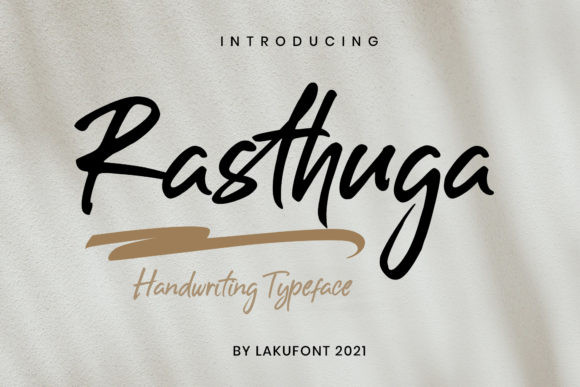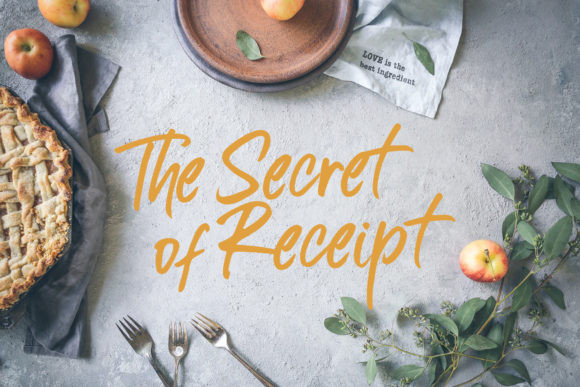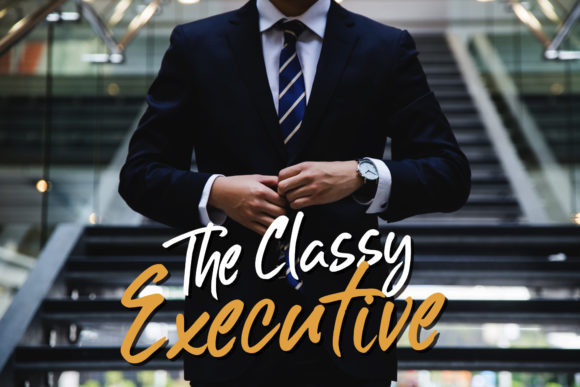
Rasthuga Font
Rasthuga is a stylish and flowing handwritten font. This versatile script font has a wide range of applications ranging from greeting cards to kids’ crafts, and is guaranteed to add a sweet touch to your next design.